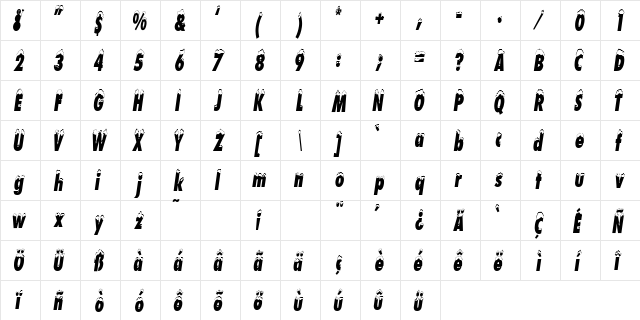
SchneehutCondensed DB Regular
Design Context for SchneehutCondensed DB Typeface
SchneehutCondensed DB is a composed and adaptable typeface that performs quietly and consistently across a wide range of design contexts. The condensed width makes it efficient for tight spaces without sacrificing legibility.
Pro Tip: Use SchneehutCondensed DB in both headline and body roles to test its range before committing to a single application.